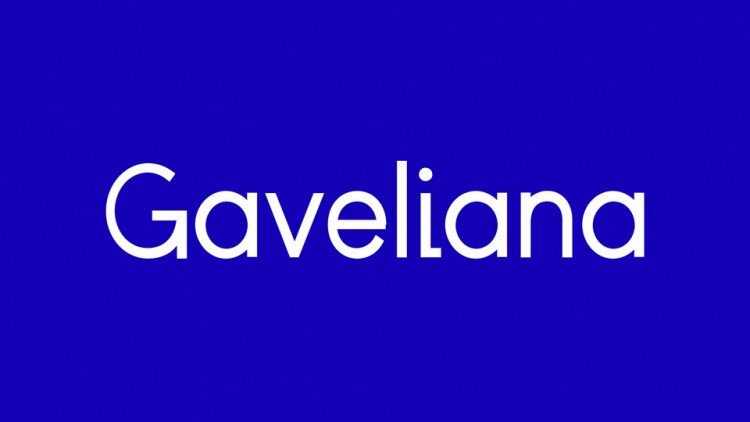
Gaveliana Font
Gaveliana Font is a modern and sweet serif font with a playful tone. It’s designed and shared by Iordanis Passas. Gaveliana is a contemporary geometric grotesque font originally designed for a personal project. The font supports Latin & Greek.
Gaveliana works great both for titles and texts, can be used for editorial purposes.